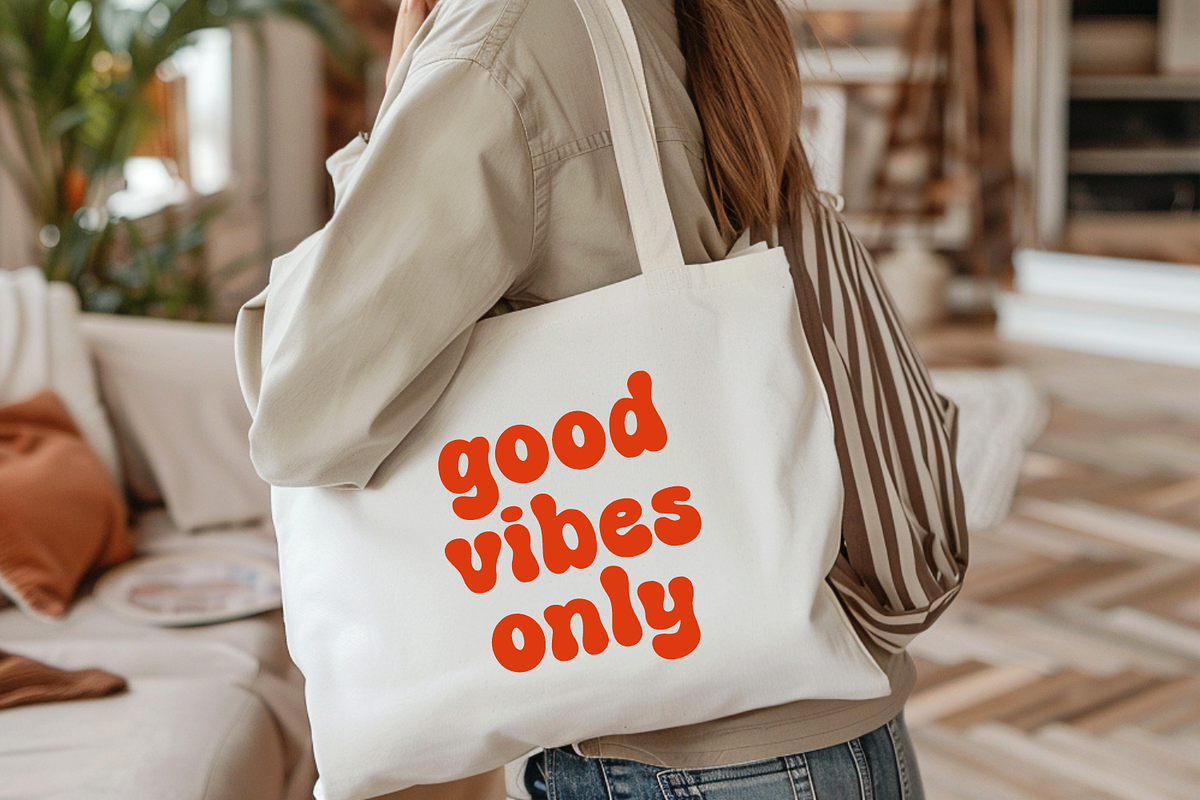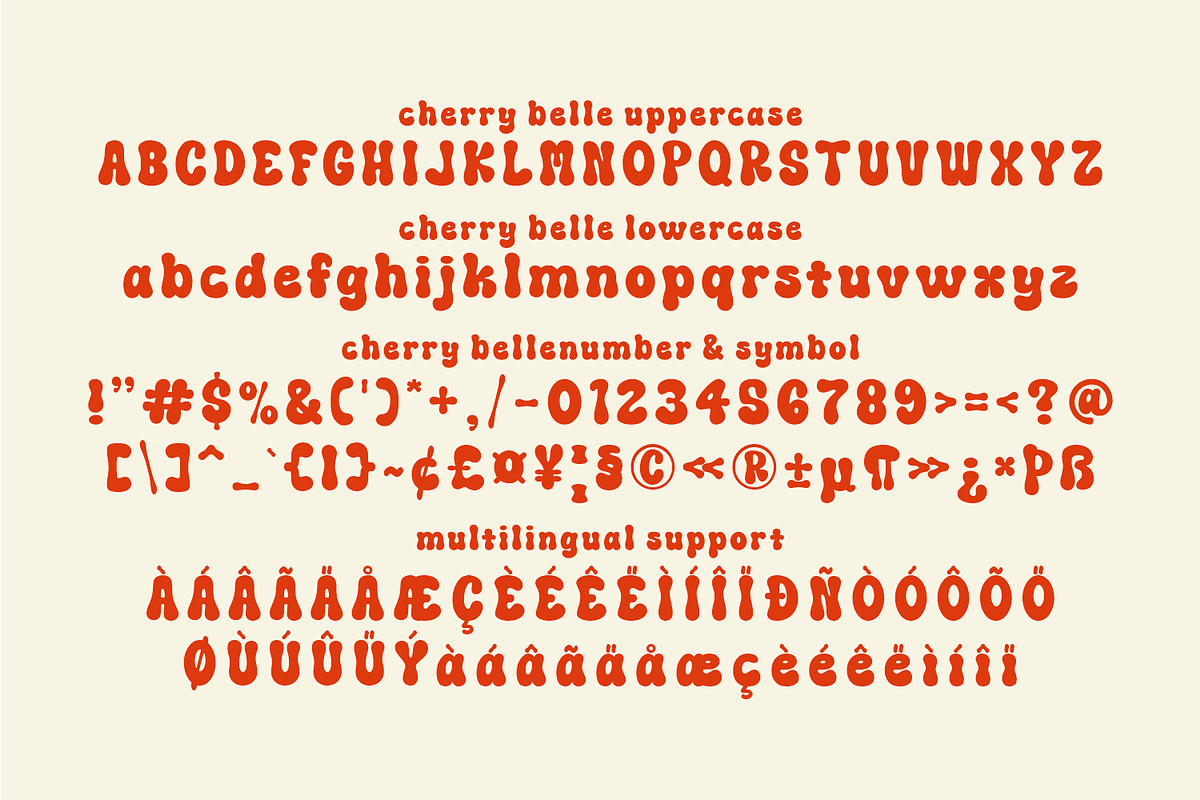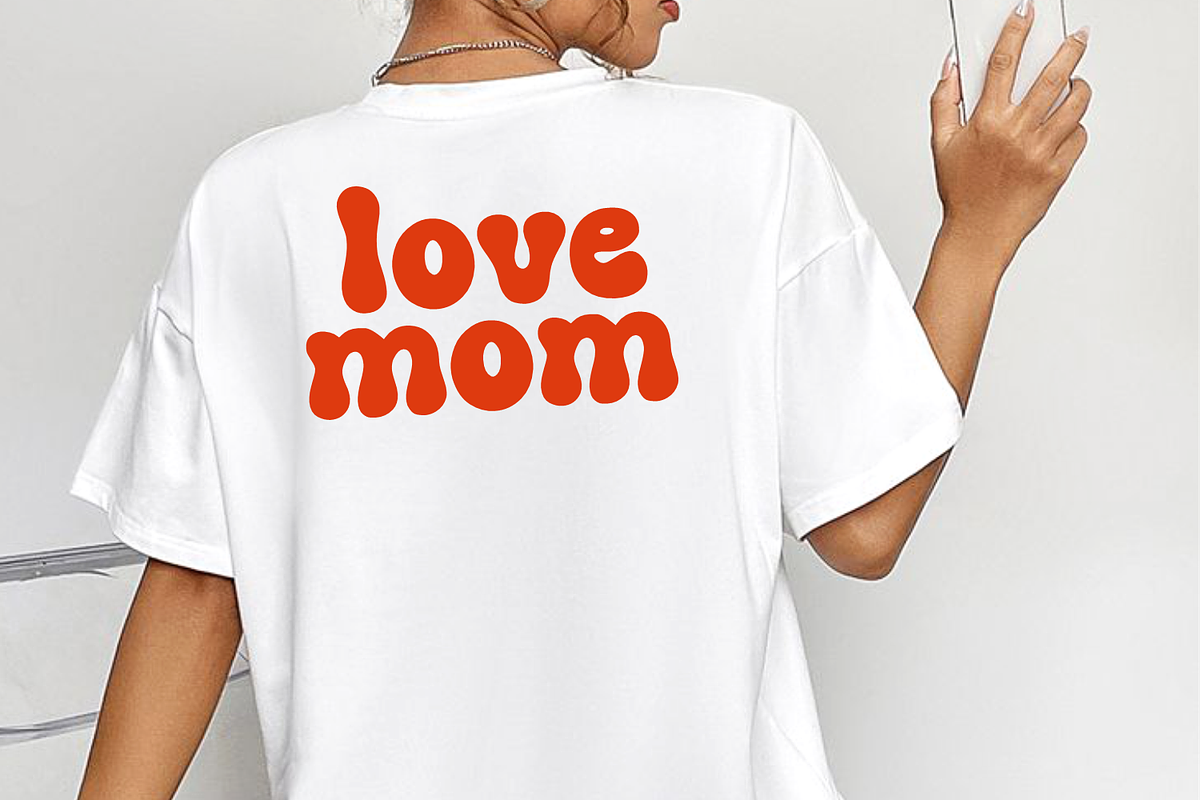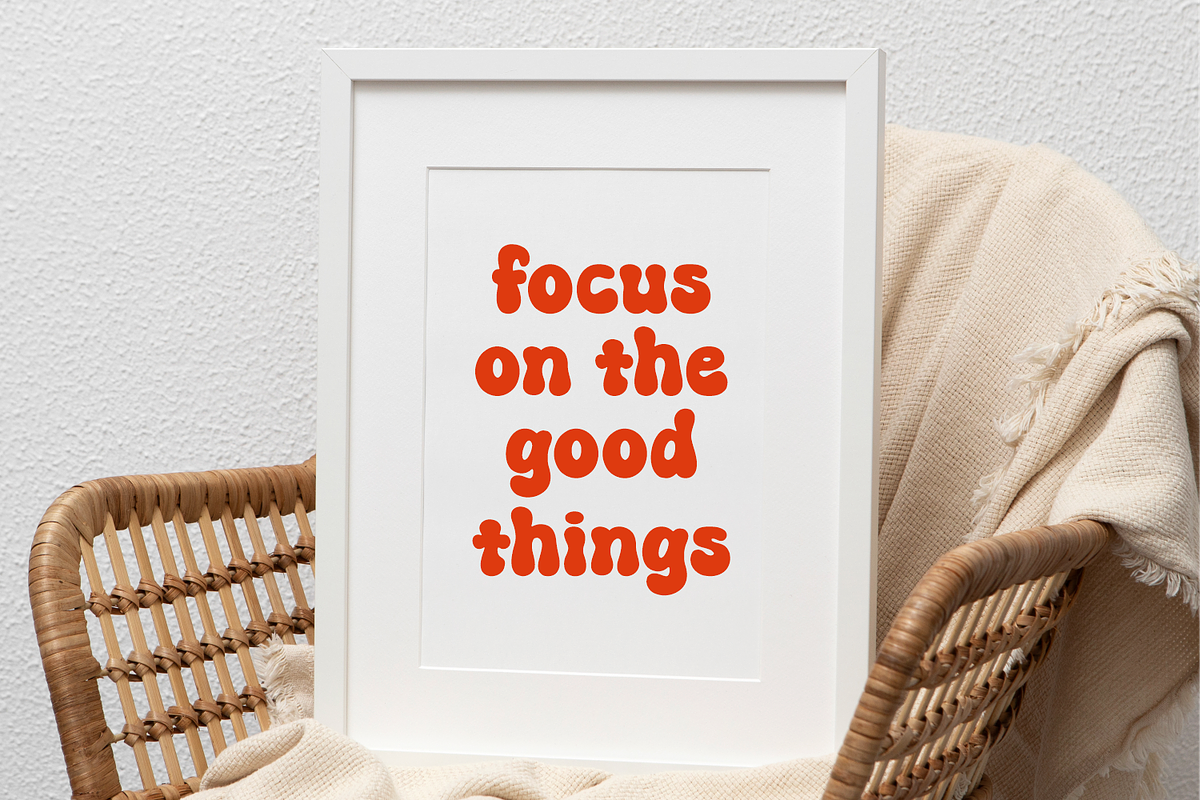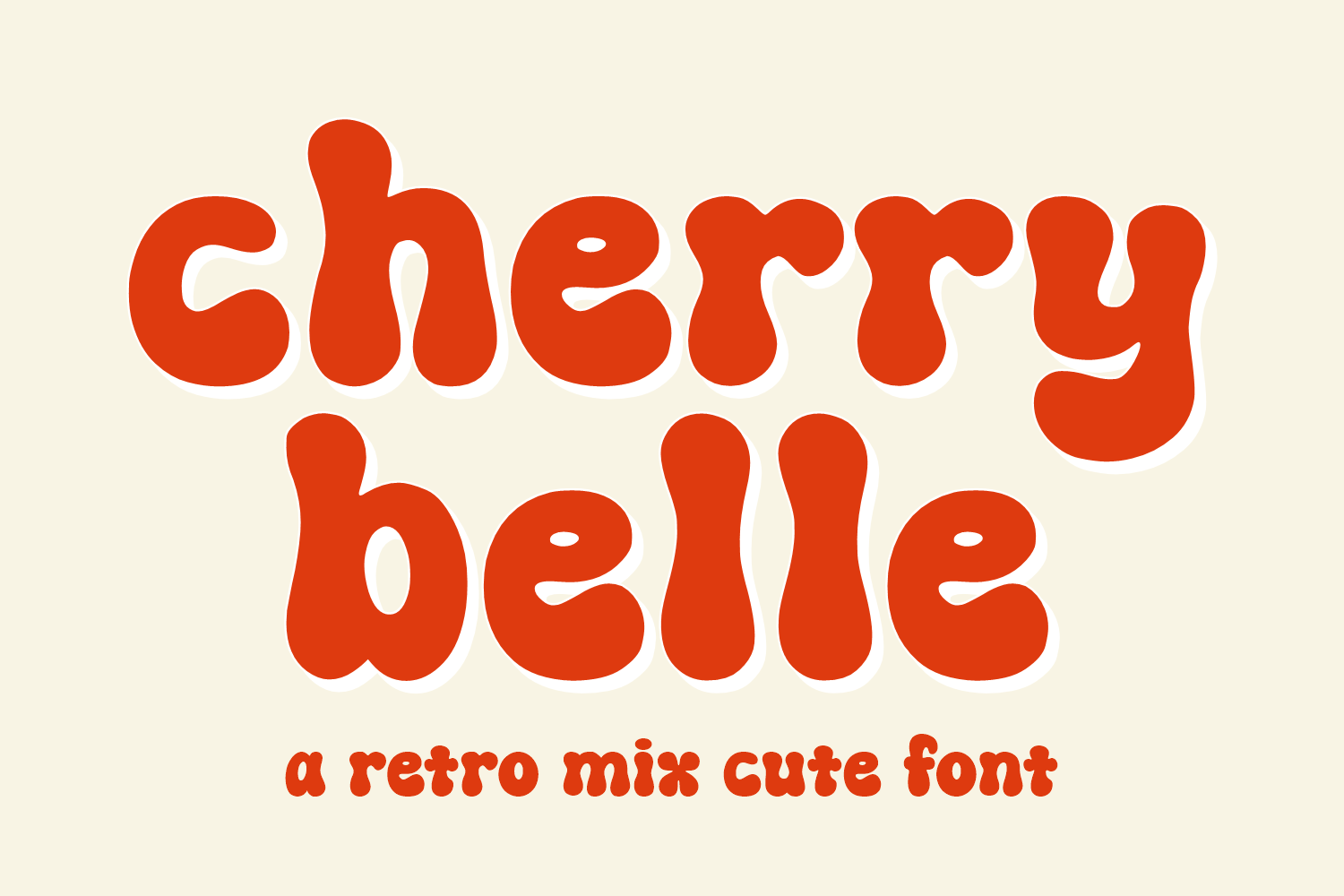
Cherry Belle - Retro Groovy Font
Introducing Cherry Belle, a charming vintage-inspired font that is sure to captivate the viewer’s attention. Every sweep of its strokes carries an unmatched artistic allure, effortlessly polishing the aesthetic of any project it graces. Cherry Belle embodies a high-value asset in the creative world, adding a unique flair to diverse design undertakings – be it logos, brand identities, or craft projects. Dare to push the boundaries of your innovative spirit with the added charm of Cherry Belle— a font that is, undoubtedly, a true festival for the senses.